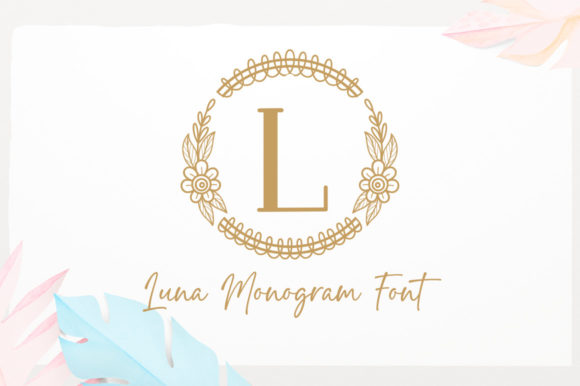
Embrace the captivating beauty of Luna Monogram Font, an exceptional decorative font that dances with grace and sophistication. Its intricate lines and mesmerizing curves will leave you enchanted, making your designs shine with an enchanting allure.
Luna Monogram Font exudes elegance and charm, evoking a sense of nostalgia and timeless beauty. Its delicate strokes and graceful flourishes will add a touch of refinement and luxury to your projects, captivating your audience's attention.
Step into a world of creative possibilities, where Luna Monogram Font becomes your muse. Imagine your logos adorned with its enchanting presence, exuding a distinctive identity that sets you apart. Envision your apparel adorned with its enchanting presence, exuding a distinctive identity that sets you apart. Envision your apparel adorned with its timeless charm, making a statement with every thread. Unleash your creativity and let Luna Monogram Font guide you to new heights of design excellence.
With Luna Monogram Font, your photography takes on a new dimension of artistry. Its delicate curves and intricate details will transform your images into breathtaking masterpieces, capturing the essence of every moment. Add a touch of elegance to your watermarks, making them an integral part of your visual identity.
Let your words dance with beauty as you use Luna Monogram Font for your quotes and blog headers. Its graceful lines will add a touch of inspiration to your messages, inviting readers to delve into your thoughts and ideas. Create posters that captivate and inspire, using Luna Monogram Font to convey your message with style and impact.
Luna Monogram Font is the perfect companion for your wedding invitations and stationery, adding a touch of romance and sophistication to your special day. Its timeless beauty will leave a lasting impression on your guests, creating memories that will be cherished for years to come.